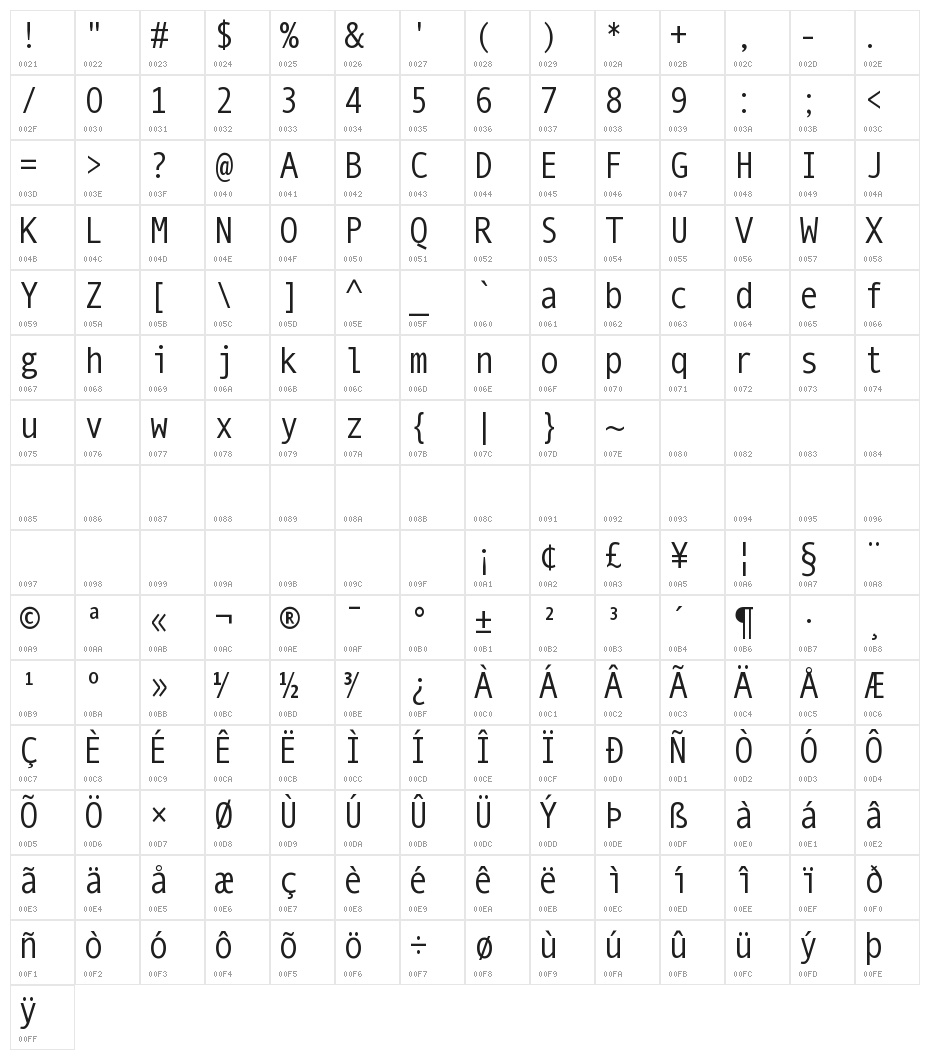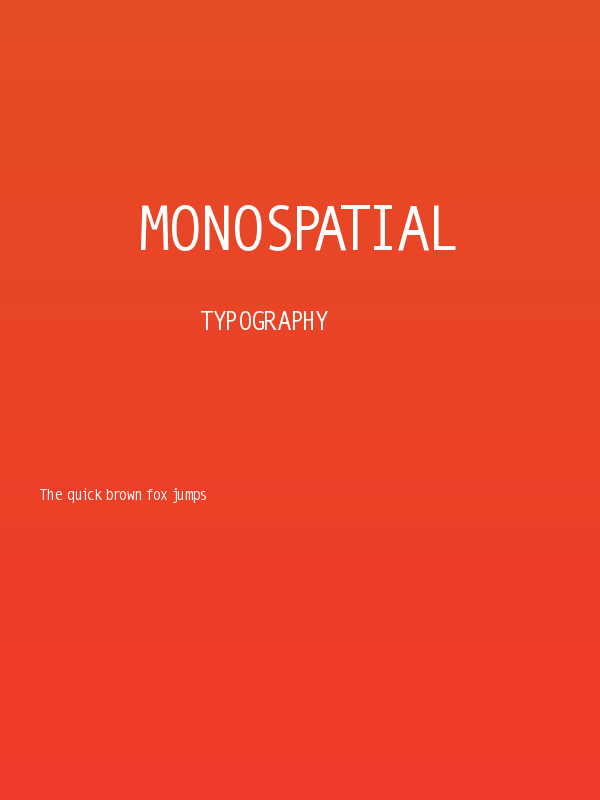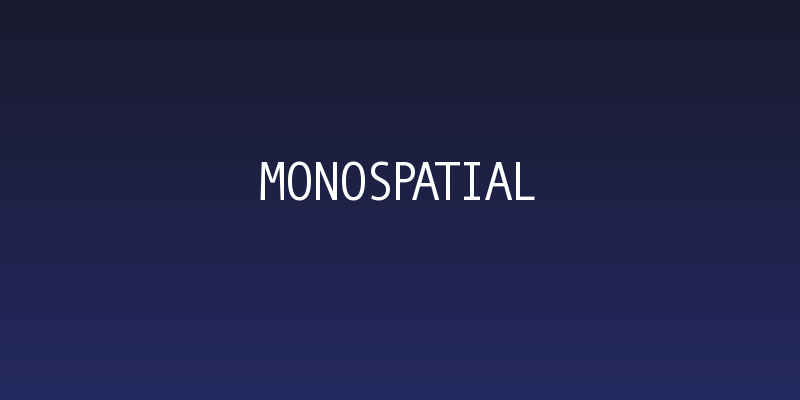
MonoSpatial Font
MonoSpatial Description
This font features a clean and modern design with monospaced characters, ensuring uniformity in width across all letters and symbols. The uppercase and lowercase letters are well-proportioned, with a slight geometric influence that adds to its contemporary appeal. The numerals are clear and distinct, making them easily readable. Special characters are included, maintaining the same width as the letters and numbers, which is ideal for coding and tabular data. The overall appearance is sleek and professional, suitable for a variety of digital and print applications.
Character SpacingMonospaced
ContrastLow
Overall StyleModern
Use CaseCoding, Technical documentation, Data tables
Proposed ProjectsIdeal for coding environments, technical documentation, data tables, and any project requiring precise alignment.